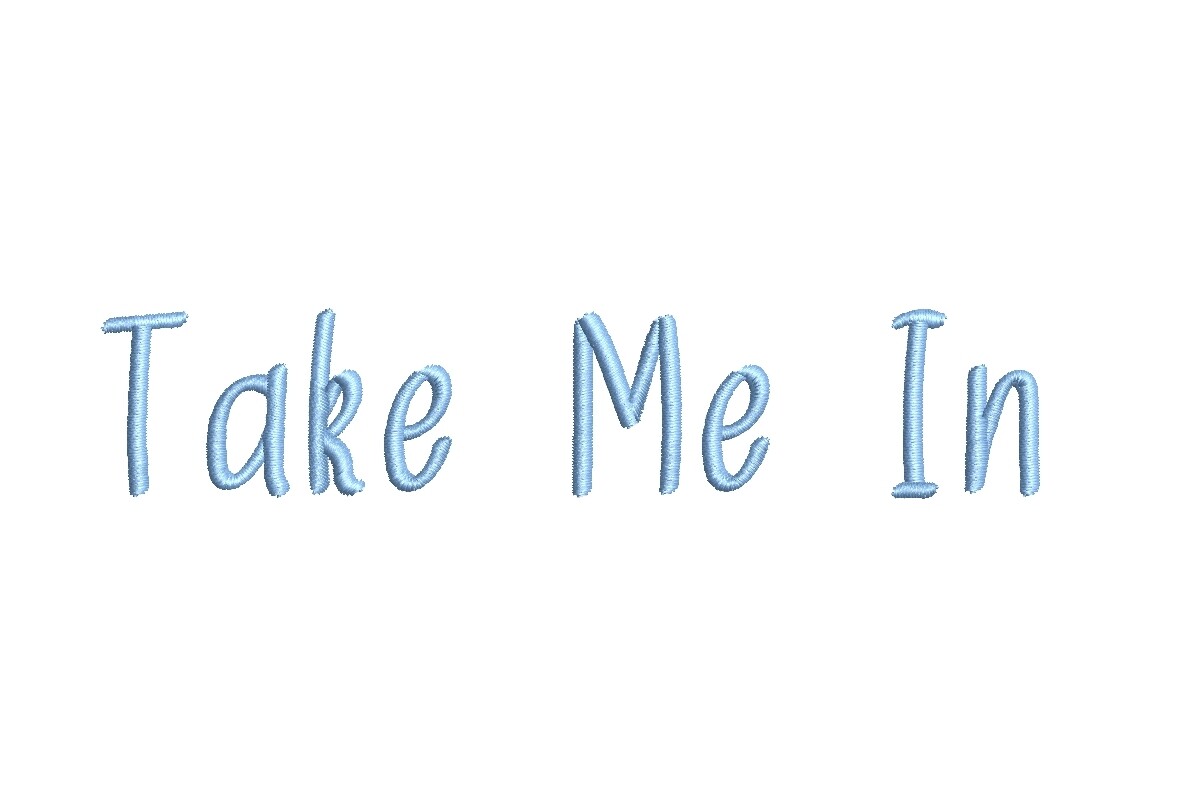
Discover the Take Me In ESA font – a powerful embroidery font compatible with Wilcom Studio e4.5.6 and Hatch 3 versions and beyond. Elevate your embroidery designs with this versatile typeface, meticulously designed for exceptional clarity and quality. Crafted with precision, it enhances your Wilcom and Hatch experience, offering seamless integration and sharp, professional results. Perfect for monograms, logos, and text embellishments, this font guarantees striking and consistent embroidery on a wide range of fabrics. Unlock limitless design possibilities with Take Me In ESA and set your projects apart. Elevate your embroidery game with this compatible and captivating font today!